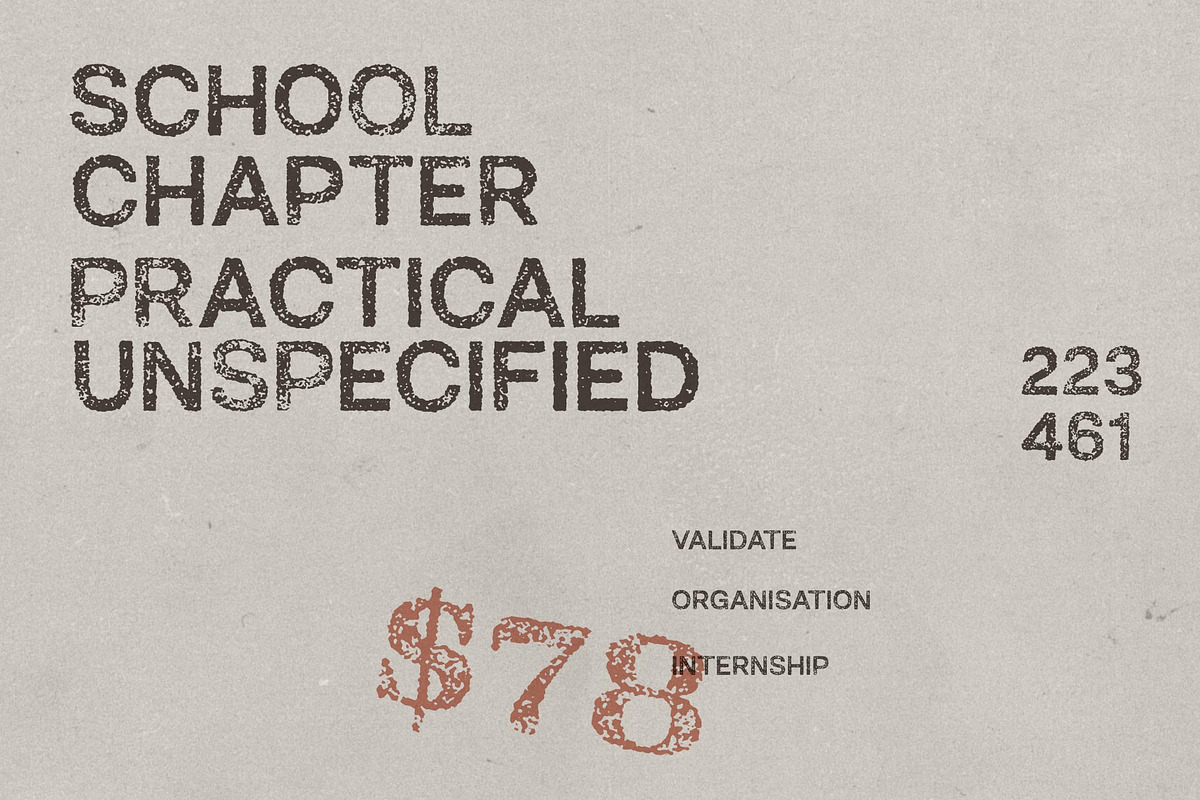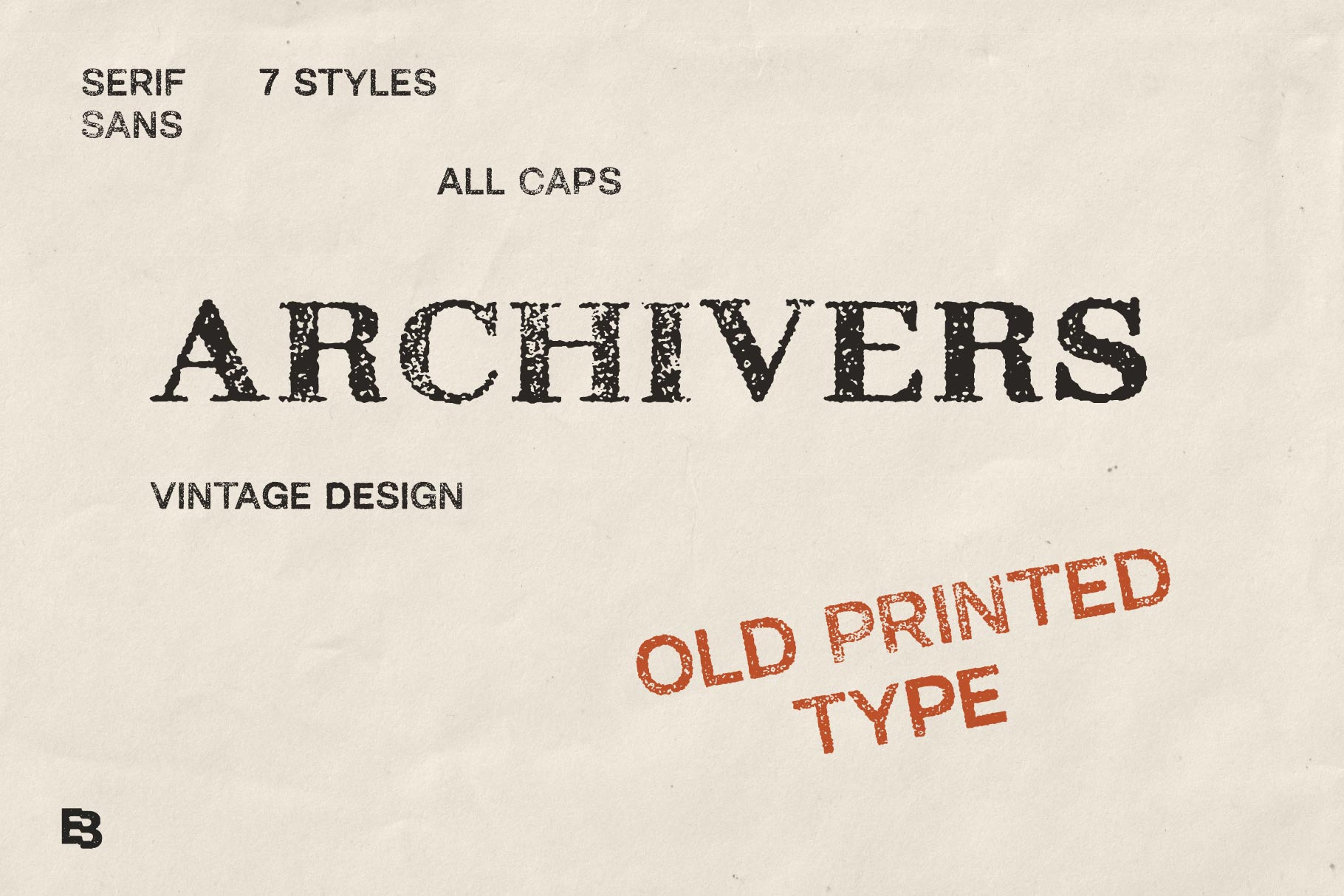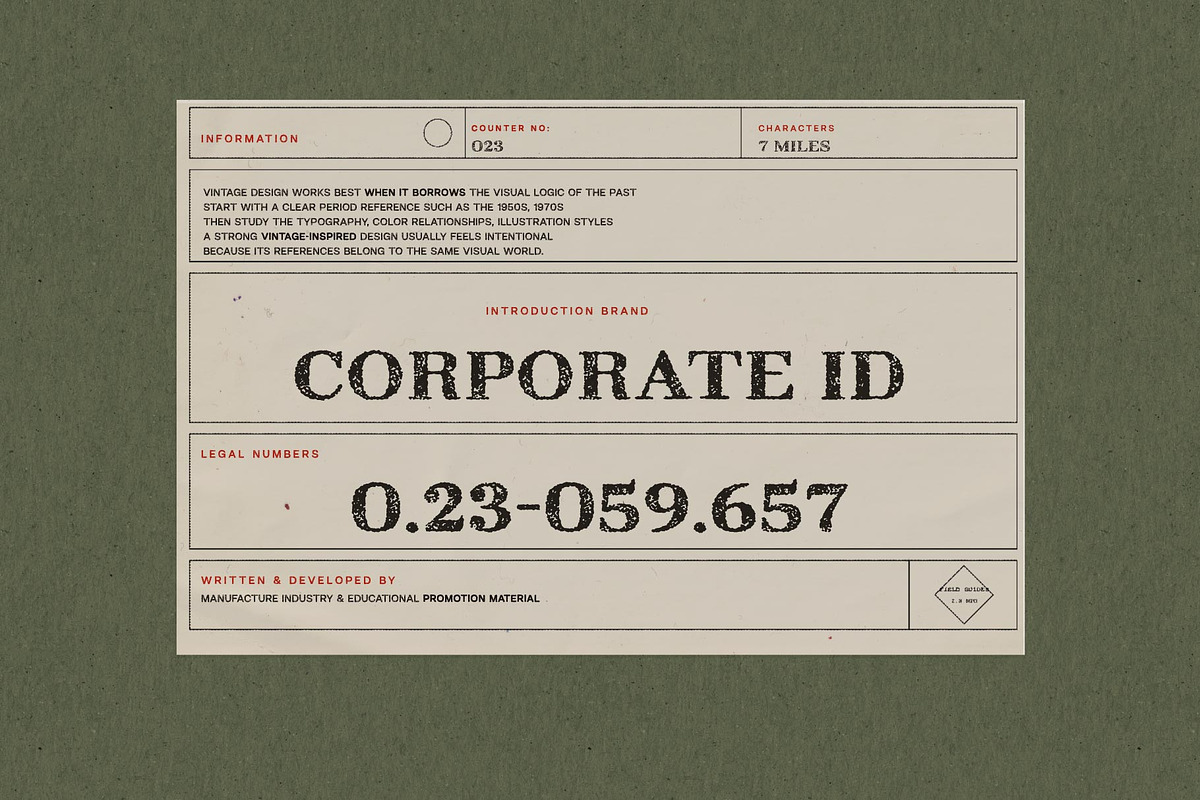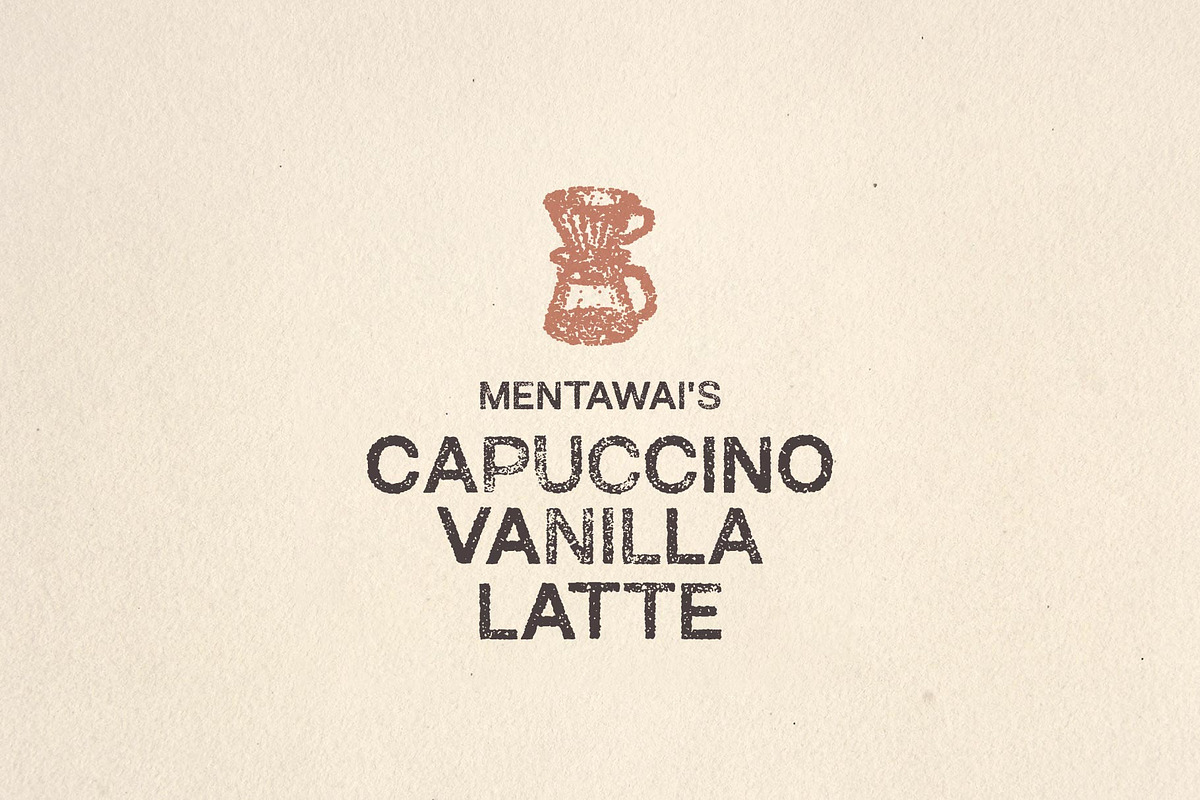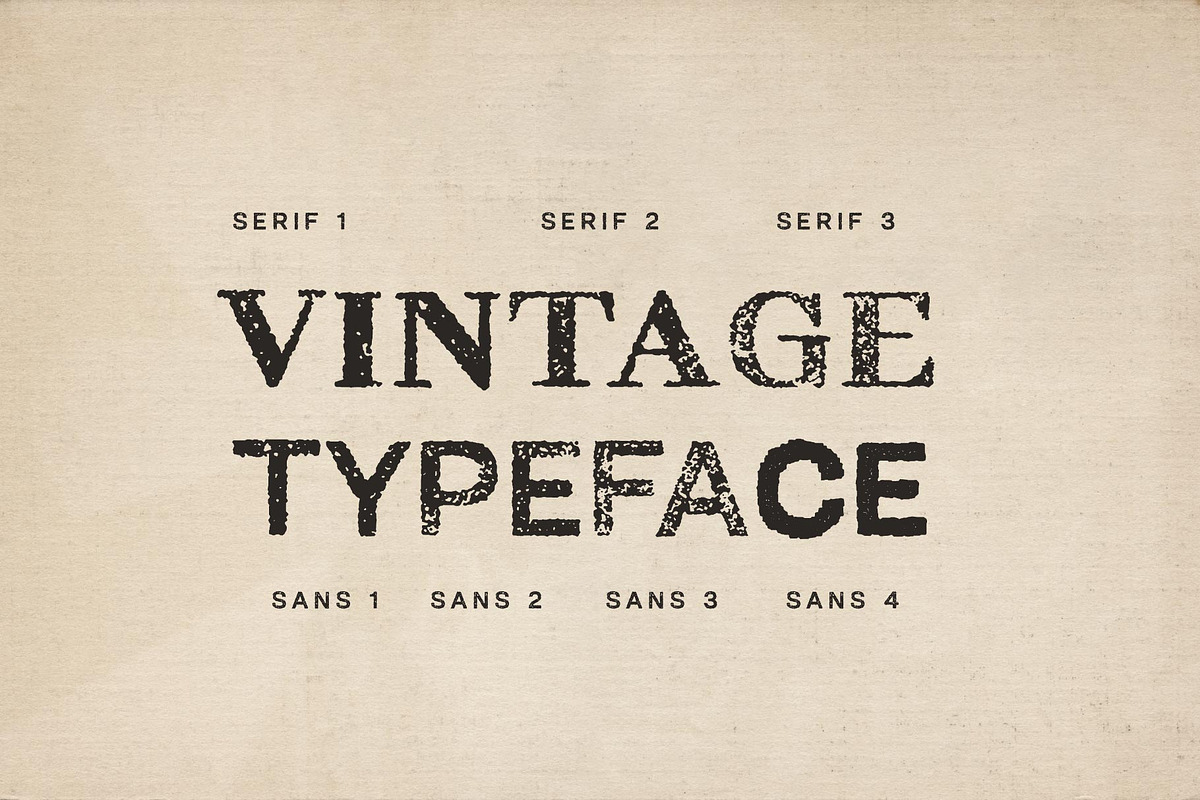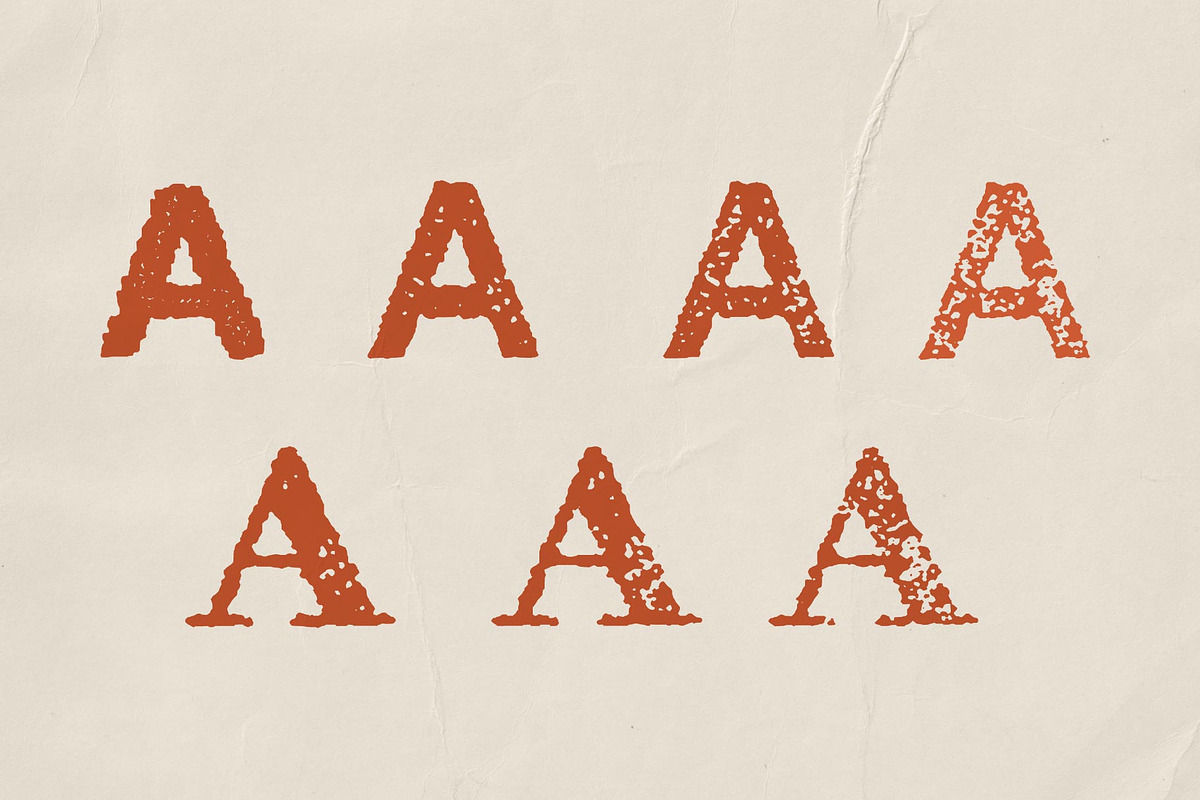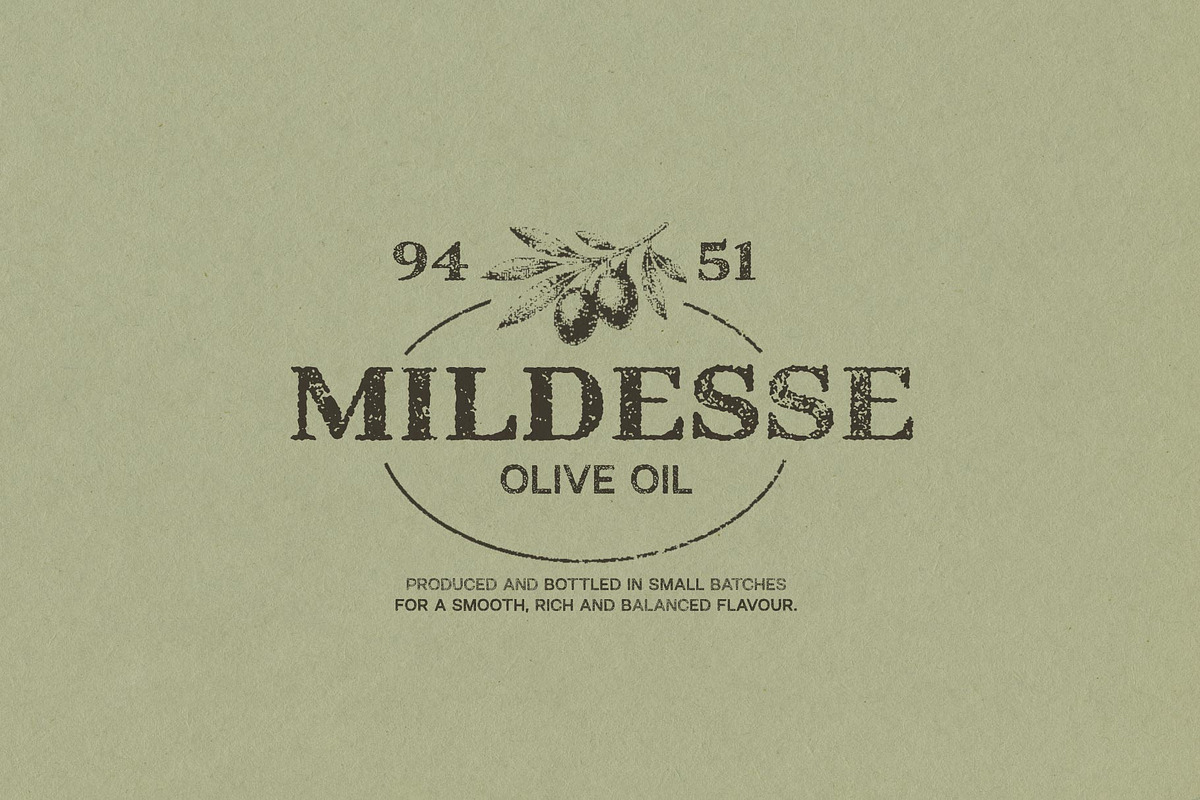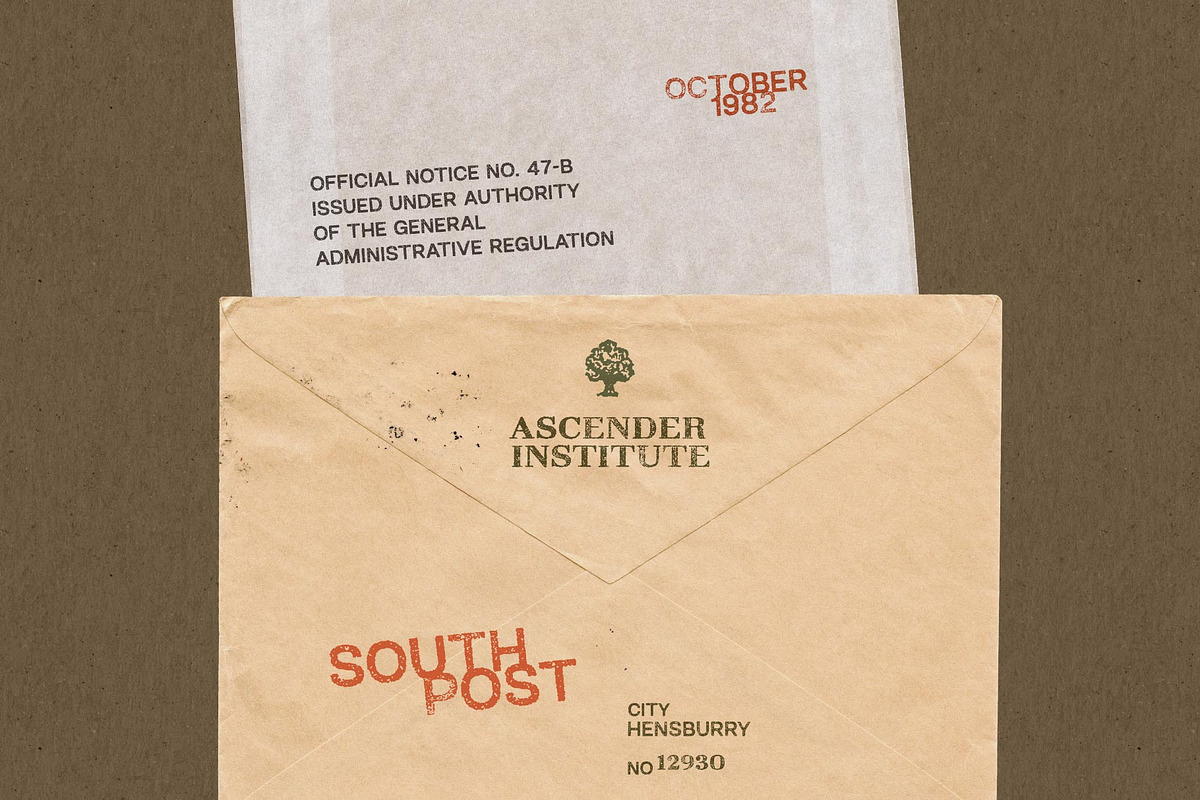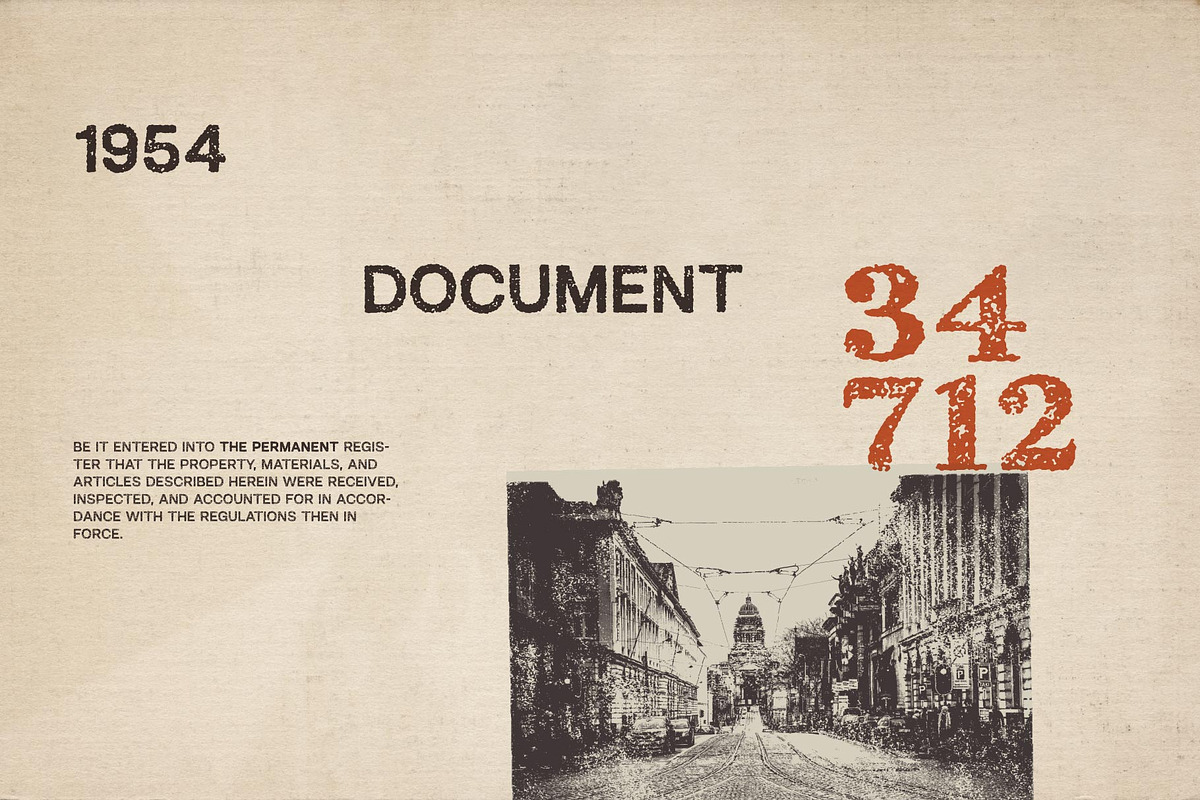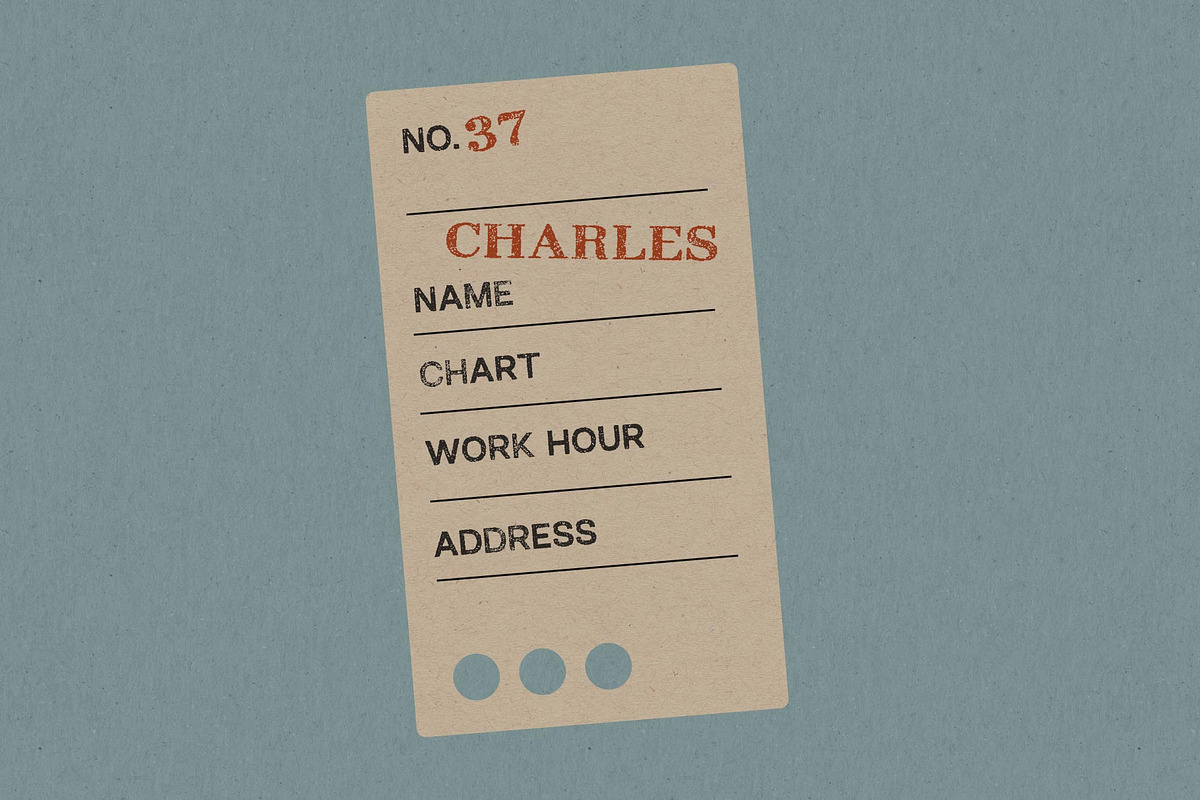
Archivers; Old Print All Caps Fonts
Archivers is a distinctive type family inspired by the character of old printed typography, combining a textured appearance with a strong and timeless presence. The family comes in 2 styles—Serif 3 fonts and Sans 4 fonts— offering flexibility for creating varied typographic compositions while maintaining a consistent visual character. With its worn, imperfect details and vintage-inspired forms, Archivers is well suited for branding, editorial design, posters, packaging, titles, and other creative projects that seek the authentic feel of aged print and archival materials.